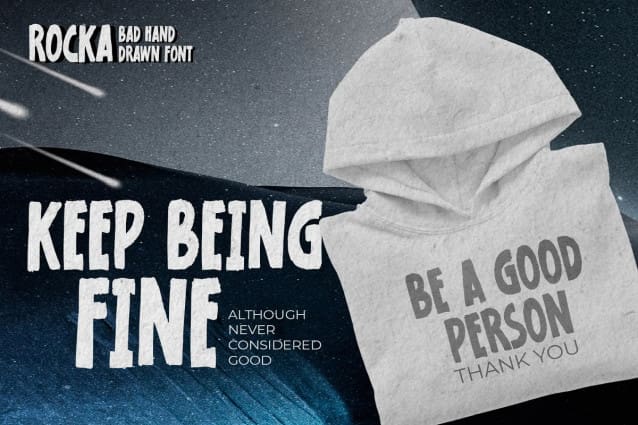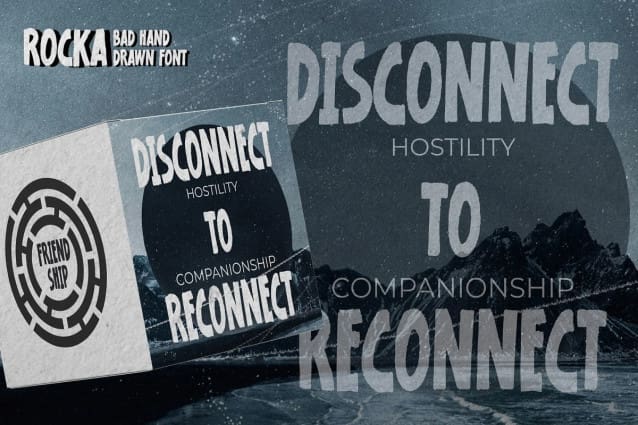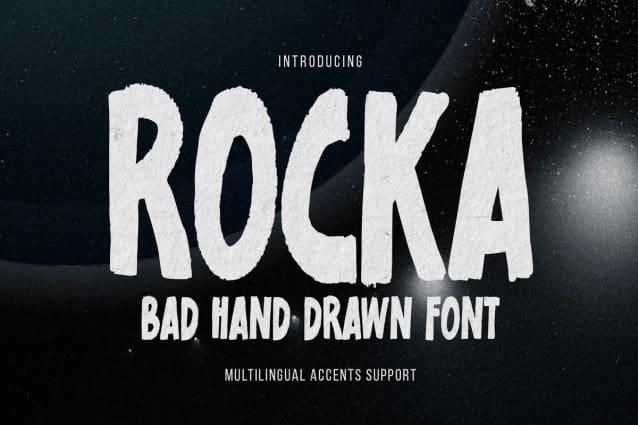
Rocka Display Font
Rocka Display Font, It’s Bad Hand Drawn Font is a Natural Brush Style and Authentic classy style, this font is great for your creative projects such as watermark on photography, and perfect for logos & branding, invitation,advertisements,product designs, stationery, wedding designs,label ,product packaging, special events or anything that need handwritting taste. ROCKA DISPLAY FONT  is a natural Hand Drawn feel. This handmade font will make your design has a beautiful natural touch for each details. It is perfect for any design project as Invitation,logo, book cover, craft or any design purposes,photos, photography overlays, signs, window art, scrapbooking, tags and so much more! It is perfect for any design project as Invitation,logo, book cover, craft or any design purposes.